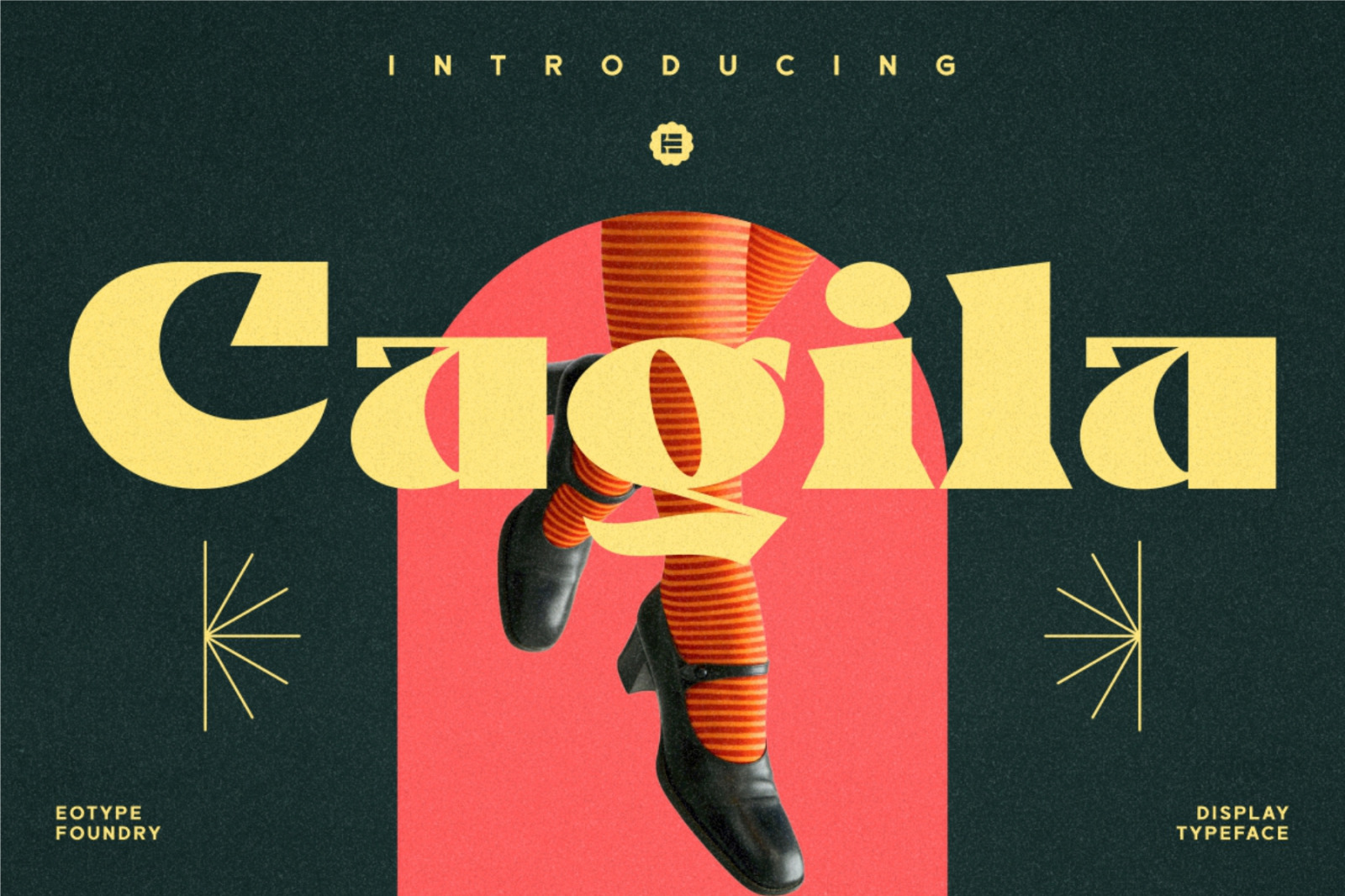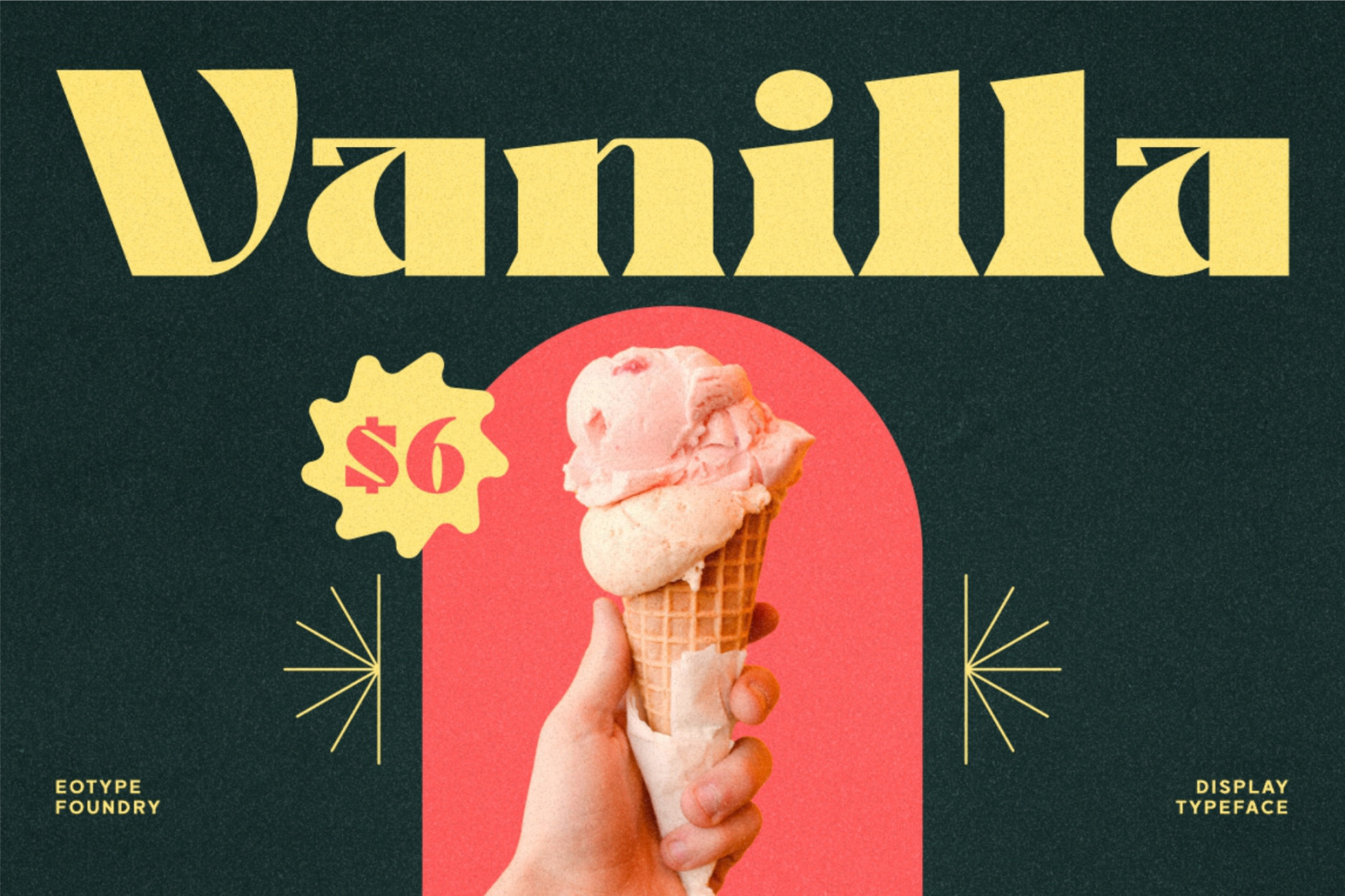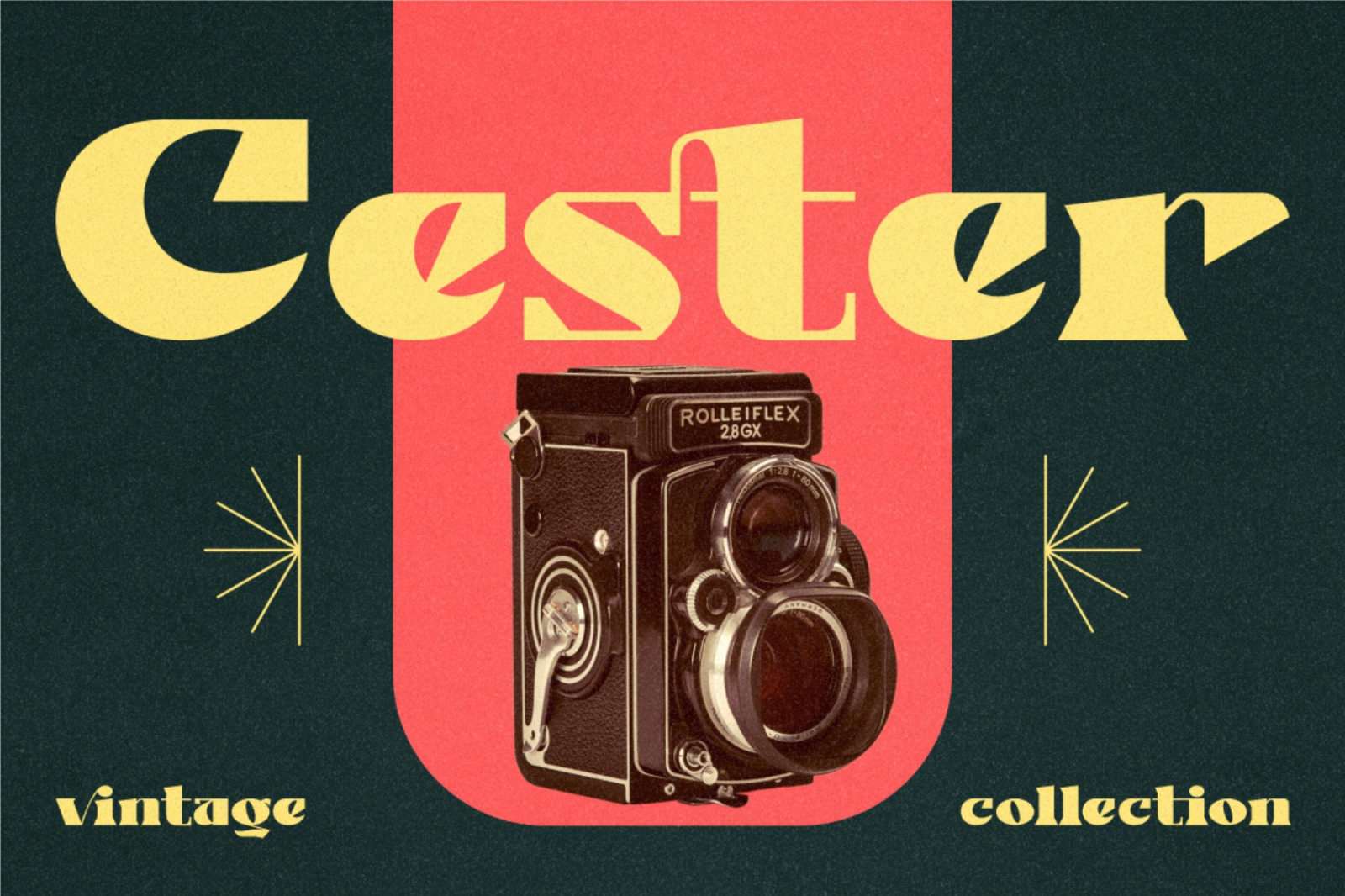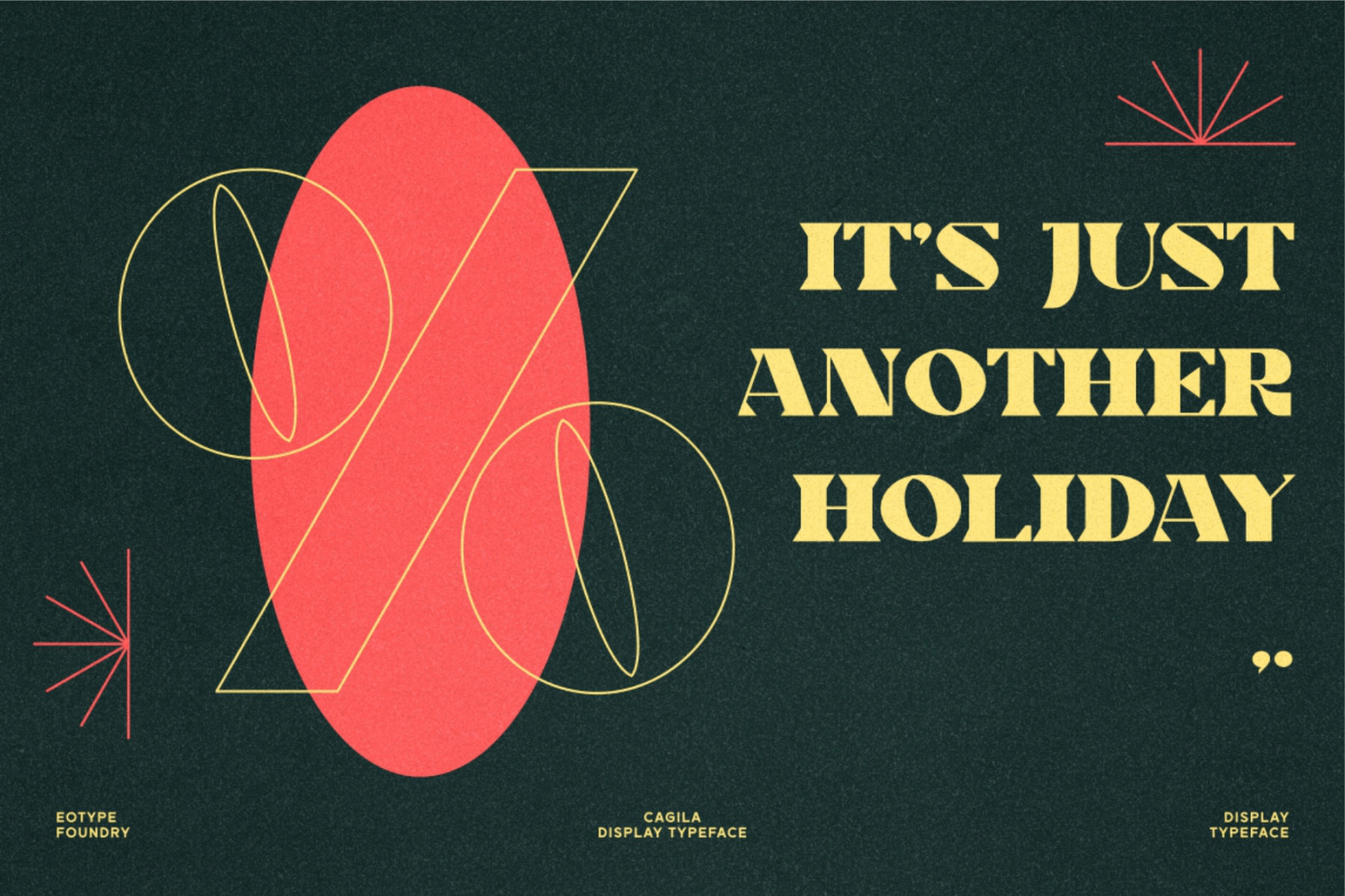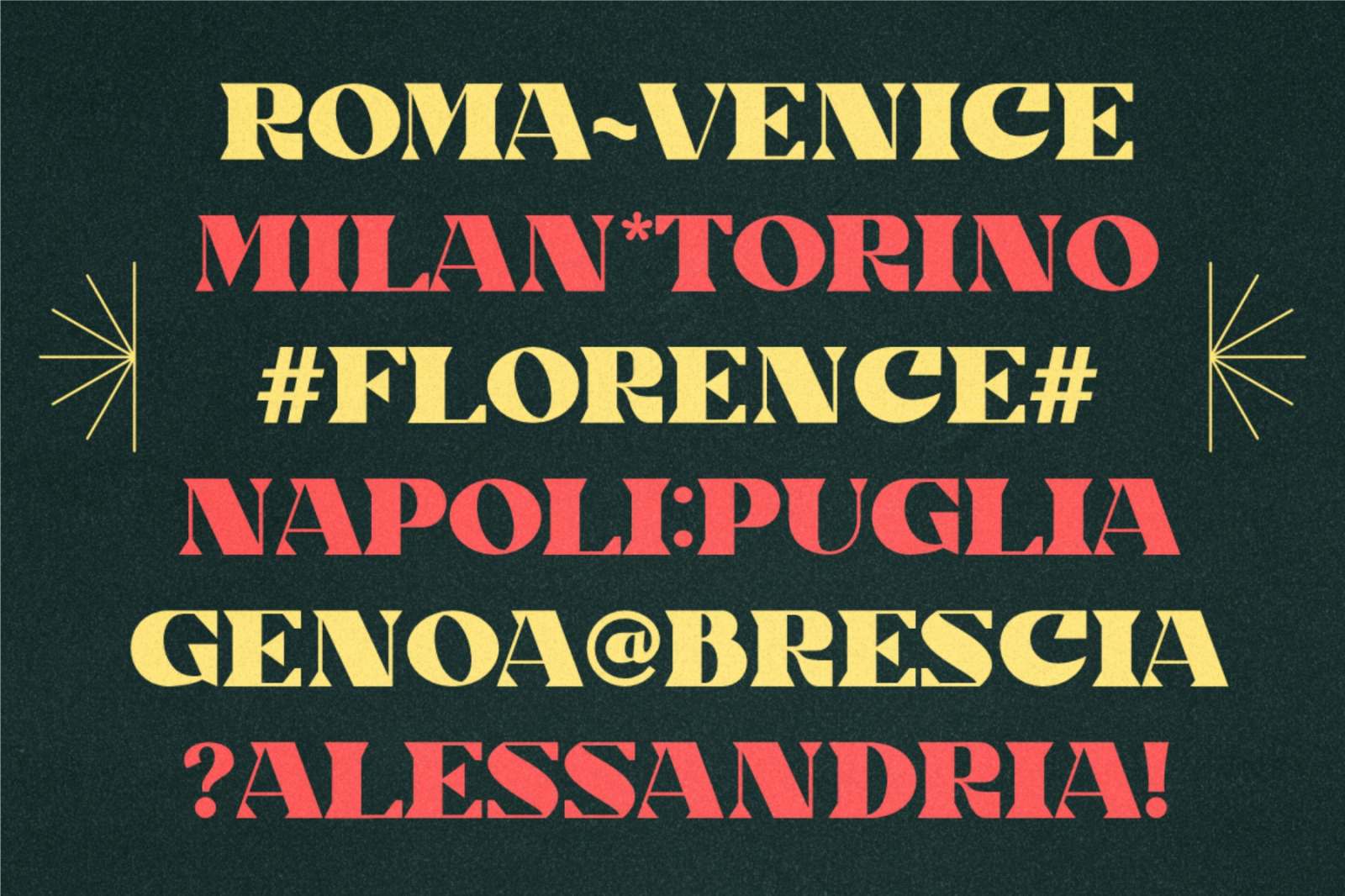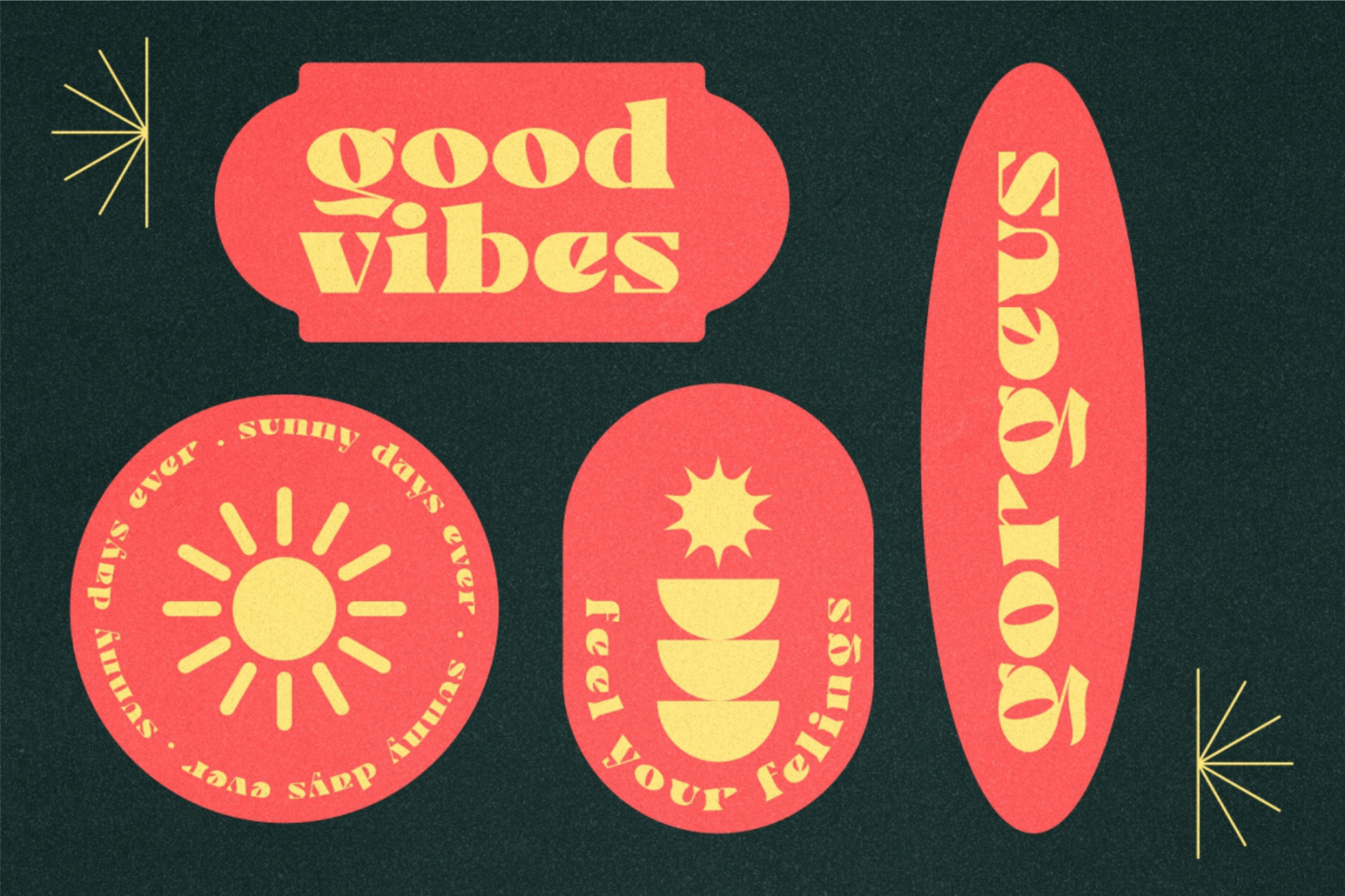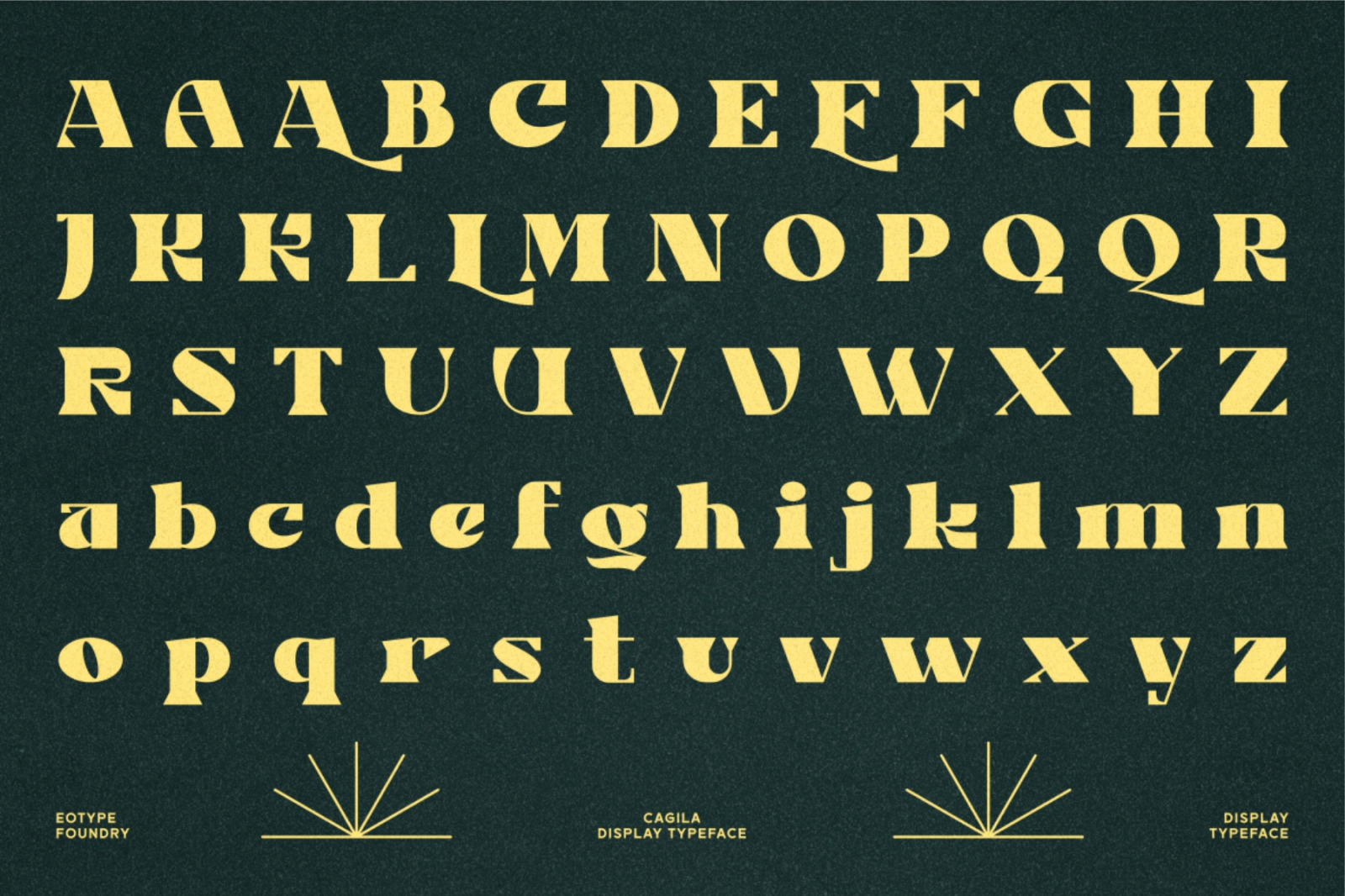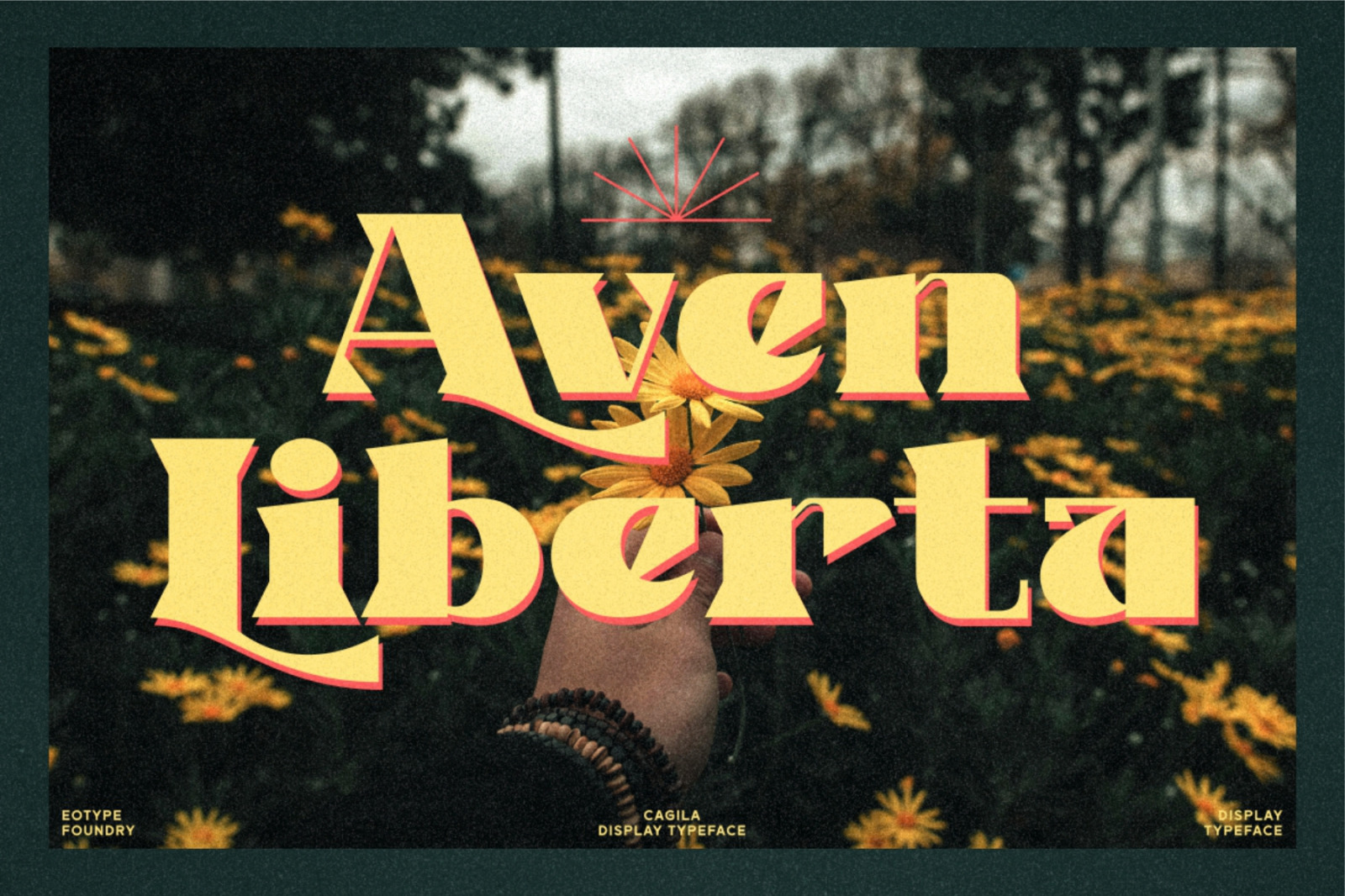
Cagila Font
Cagila is a versatile, Vintage and elegant serif font. Designed by Eotype Foundry, It has a unique style with stylistic, alternates, ligatures and supports multilingual languages.
Create unique & beautiful logotype, use it as an elegant solution for your next magazine layout, or choose Cester for any graphics that require a bold look with a elegant flair.